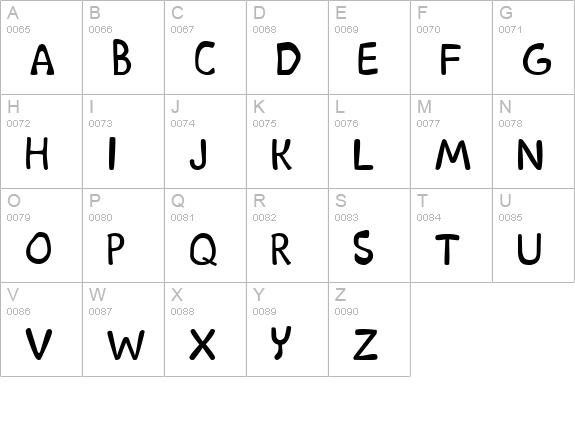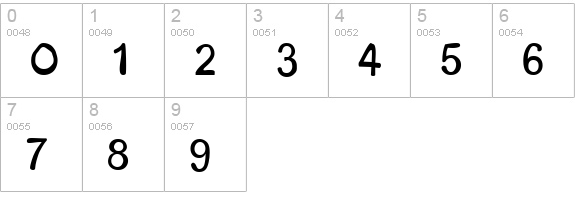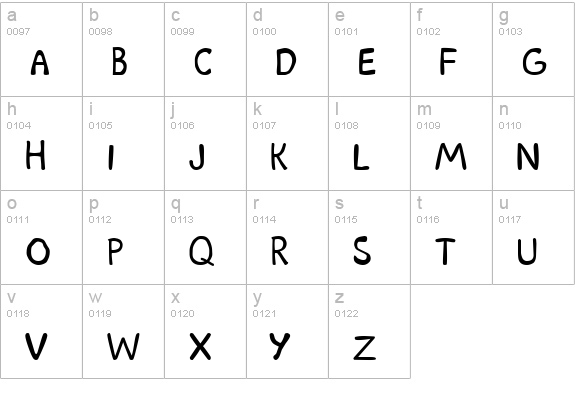
Scooby Doo Font Details
Introducing the sensational Scooby Doo font, a playful and whimsical typeface that captures the essence of mystery, adventure, and laughter. Inspired by the iconic animated series, this font brings to life the beloved characters and their thrilling escapades in the most delightful way. With its distinctive curves and bold strokes, the Scooby Doo font exudes a sense of fun and excitement. Each letter is meticulously crafted, showcasing the unique personality of the gang, from Scooby's lovable goofiness to Shaggy's laid-back charm. This font is perfect for adding a touch of nostalgia to any design project, whether it's a birthday invitation, a comic strip, or a playful logo. The best part? The Scooby Doo font is absolutely free! That's right, you can easily download this incredible typeface at FontsMarket.com, the go-to destination for all your font needs. Whether you're a designer, a fan of the series, or simply someone who appreciates the power of a great font, this is an opportunity you don't want to miss. Don't wait any longer to bring the magic of Scooby Doo into your designs. Download the Scooby Doo font today and embark on an unforgettable typographic adventure. Remember, it's not just a font - it's a piece of childhood nostalgia that will make your creations truly stand out. So, let your imagination run wild and let the gang join you on your creative journey.